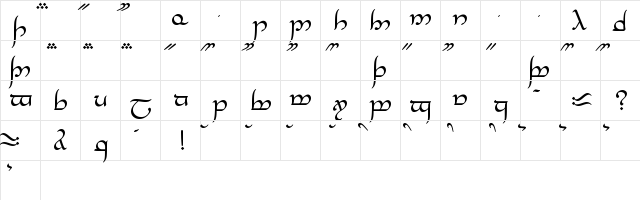
Tengwar Annatar Alt Regular
| Designer | Johan Winge |
Design Context for Tengwar Annatar Alt Typeface
Tengwar Annatar Alt takes a measured approach to typography — its balanced proportions and neutral character make it a reliable workhorse for both digital and print work.